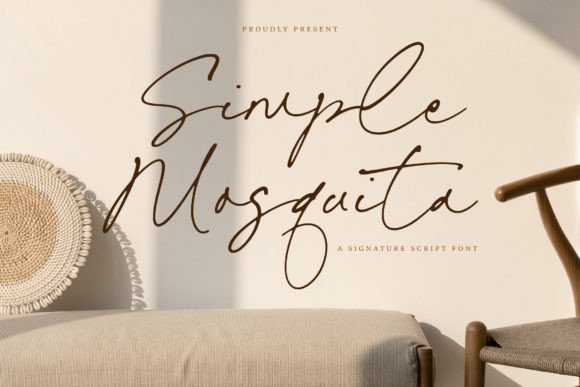
Introducing Simple Mosquita Font: Elevate Your Designs with Elegance and Sophistication
In the world of typography, a well-crafted font can make all the difference in transforming a design from ordinary to extraordinary. Simple Mosquita Font is a stunning example of refined typography, boasting a signature script style that exudes elegance and sophistication. With its beautiful ligatures and fluid strokes, this font is perfect for adding a touch of luxury to any design project.
The Characteristics of Simple Mosquita Font
Simple Mosquita Font is a carefully crafted script font that showcases a range of desirable characteristics, making it an excellent choice for designers seeking to elevate their work. Some of its key features include:
- Refined ligatures: The font’s ligatures are meticulously designed to create a seamless, connected look that adds to its overall elegance.
- Fluid strokes: The fluidity of the font’s strokes creates a sense of movement and fluidity, giving it a dynamic and engaging feel.
- Handwritten look: Despite being a digital font, Simple Mosquita boasts a remarkably natural, handwritten appearance that adds warmth and personality to any design.
Perfect for a Range of Design Applications
Simple Mosquita Font is an incredibly versatile typeface that can be used in a variety of design contexts. Some of the most popular applications for this font include:
- Invitations: Whether you’re designing wedding invitations, birthday party invites, or other celebratory materials, Simple Mosquita Font is an excellent choice for adding a touch of sophistication and elegance.
- Branding: For businesses seeking to establish a refined and luxurious brand identity, this font is an excellent option for use in logos, marketing materials, and website design.
- Personal stationery: Add a touch of personality and style to your personal correspondence with Simple Mosquita Font, perfect for use in stationery, greeting cards, and more.
The Benefits of Using Simple Mosquita Font
So why choose Simple Mosquita Font for your design projects? Here are just a few benefits of using this exceptional typeface:
- Elegance and sophistication: Simple Mosquita Font adds a level of refinement and luxury to any design, making it perfect for high-end branding and marketing materials.
- Unique and inviting: The font’s charming style strikes a balance between sophistication and warmth, making every word feel unique and engaging.
- Artistic flair: For designers seeking to infuse their projects with a sense of artistry, Simple Mosquita Font is an excellent choice, offering a level of creativity and expression.
Tips for Using Simple Mosquita Font Effectively
To get the most out of Simple Mosquita Font, here are a few tips for using it effectively in your design projects:
- Pair with complementary fonts: Combine Simple Mosquita Font with complementary fonts to create visual interest and add depth to your designs.
- Experiment with colors and textures: Don’t be afraid to experiment with different colors and textures to add an extra layer of creativity to your designs.
- Use sparingly: While Simple Mosquita Font is a beautiful typeface, it’s best used sparingly to avoid overwhelming the design. Use it to highlight key messages or add emphasis to specific elements.
In conclusion, Simple Mosquita Font is a truly exceptional typeface that offers a unique blend of elegance, sophistication, and creativity. With its refined ligatures, fluid strokes, and handwritten look, this font is perfect for designers seeking to elevate their work and add a touch of luxury to their designs. Whether you’re working on invitations, branding, or personal stationery, Simple Mosquita Font is an excellent choice for any design project.
Key Features Recap
- Refined signature script font
- Graceful ligatures and fluid strokes
- Seamless, handwritten look
- Perfect for invitations, branding, and personal stationery
- Strikes a balance between sophistication and warmth
- Ideal for adding an artistic flair to designs